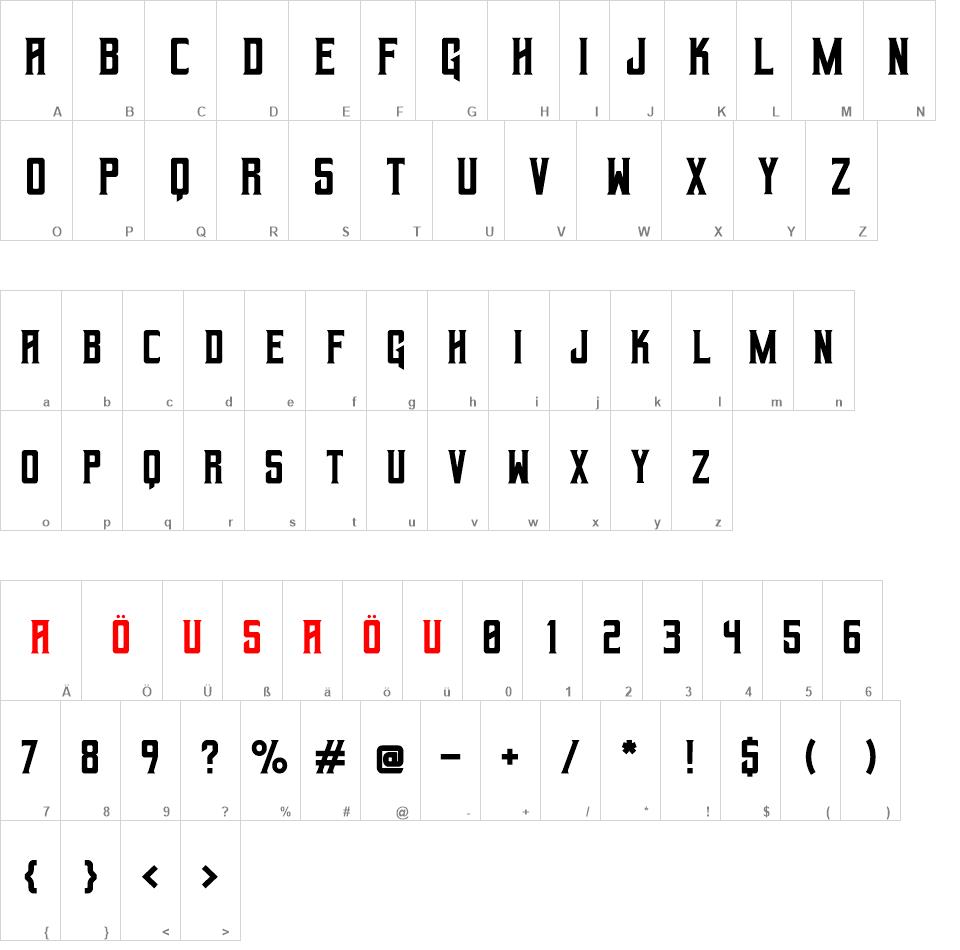
Geizer
Geizer font
Inspired by horror fiction, heavy metal, and things that go bump in the night – this font is named after Geezer Butler of Black Sabbat